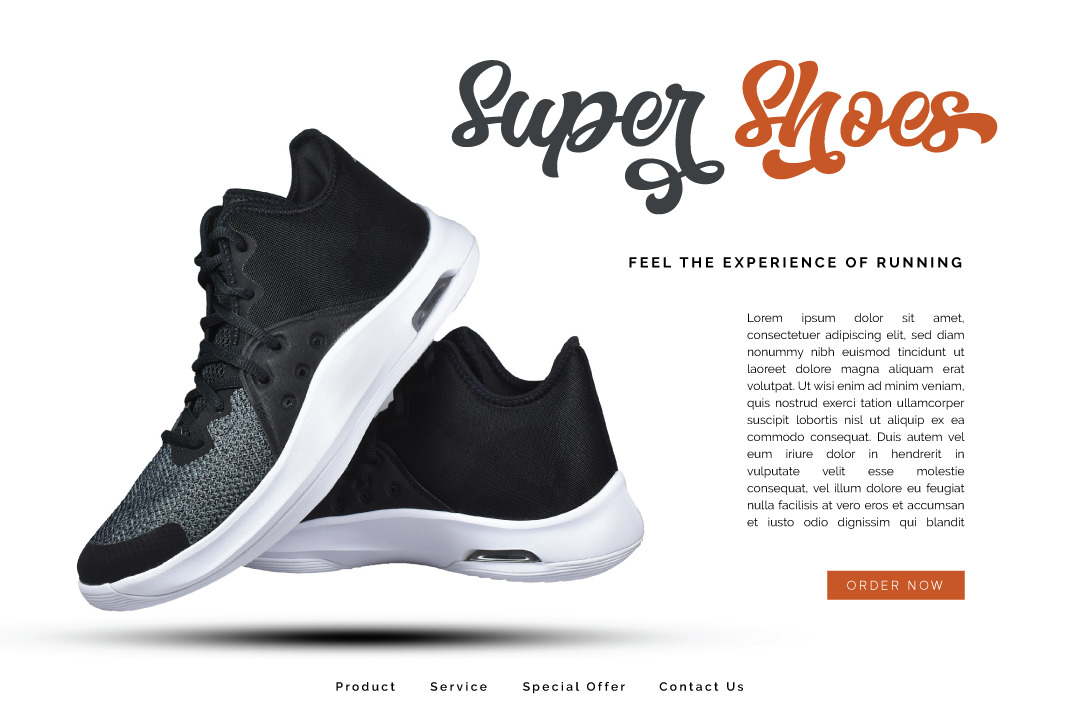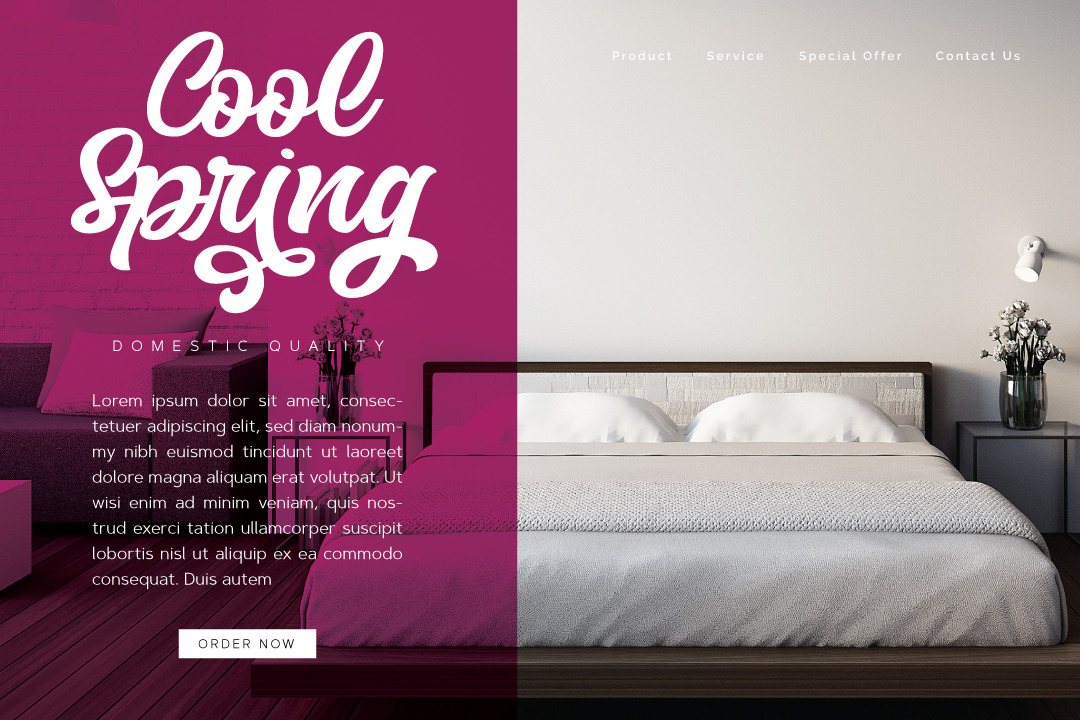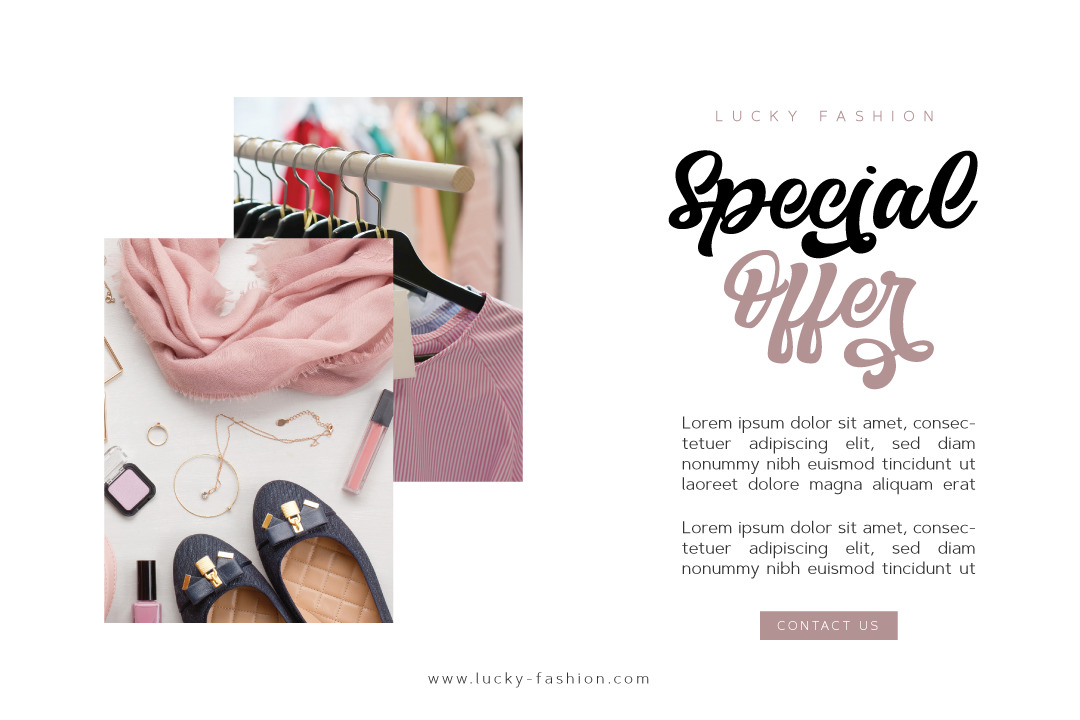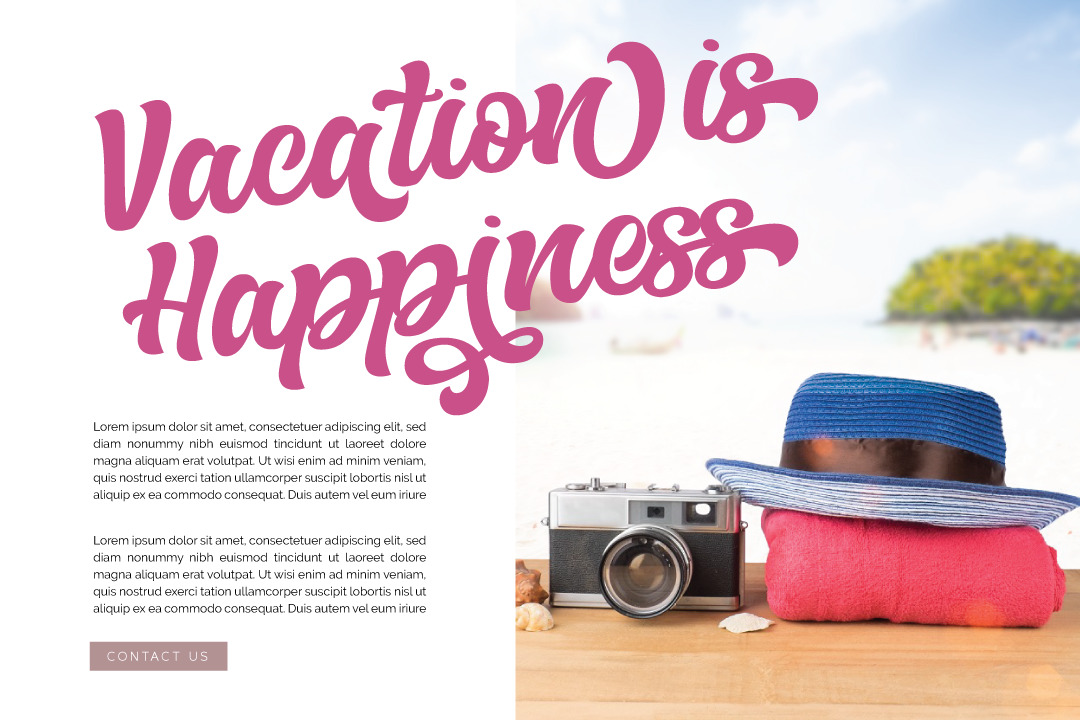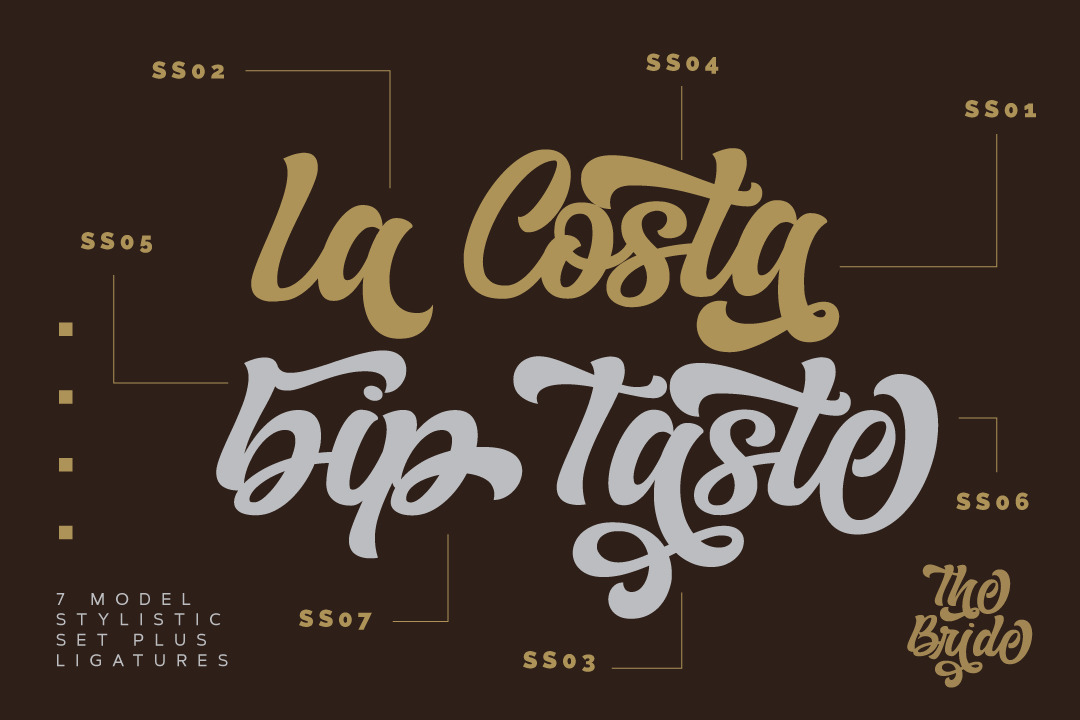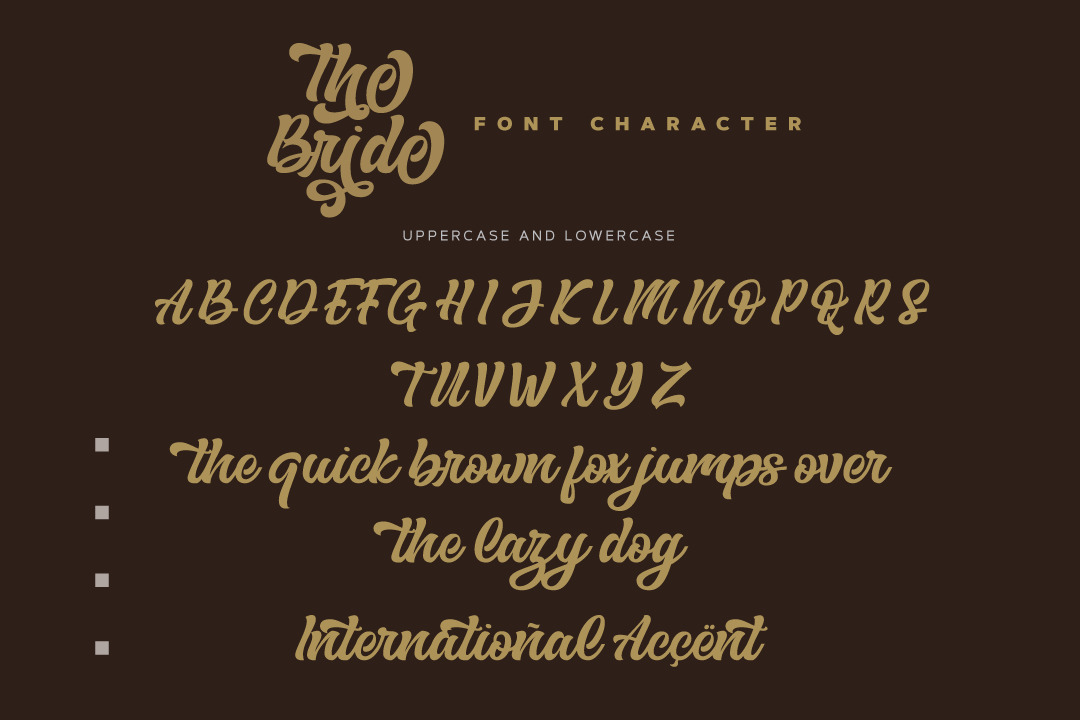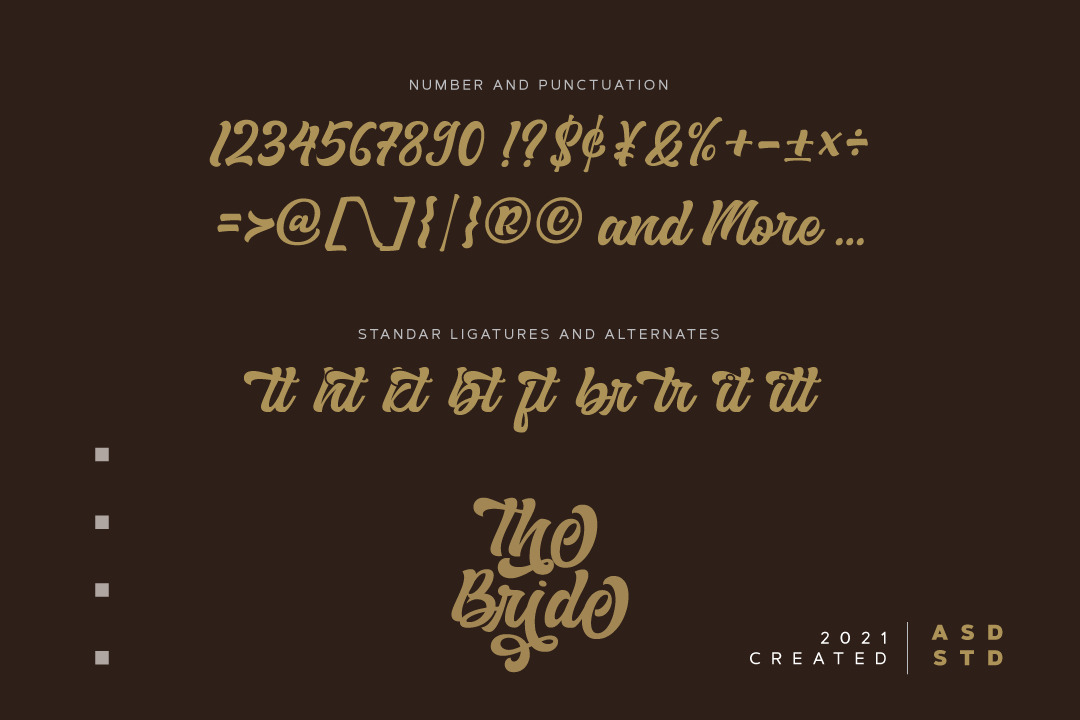
The Bride Font
Introducing the new font The Bride a bold script. This font suitable for use in a variety of design fields, such as event advertisements, product promotions, book titles, activity titles, logos, adventure, and others. This font is equipped with 7 models stylistic set that will make your design look more attractive and beautiful.
- Number & punctuations
- Multilingual
- 7 Models Stylisticset
- Ligatures and alternates character